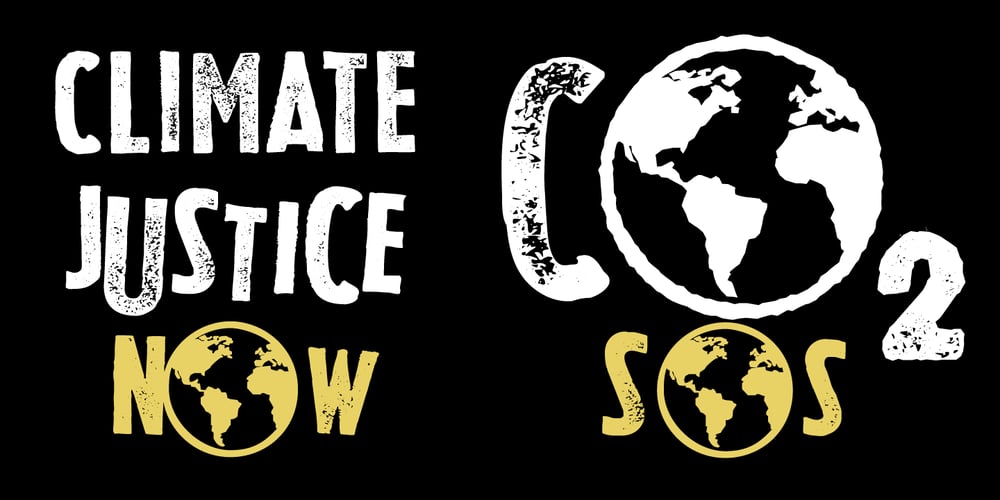
Wood Sans Font Family was designed by Manuel Viergutz and published by TypoGraphicDesign. Wood Sans contains 9 styles and family package options. The typeface Wood Sans is designed from 2021 for the font foundry Typo Graphic Design by Manuel Viergutz.The display typeface is a digital version of original wood letters from a german flea market find.8 font-styles (Clean, Clean Invest, Clean Mix, Rough, Rough Misprint, Rough Alt, Rough Dark & Icons) with 450 glyphs (Adobe Latin 2) incl. 100+ decorative extras like icons, arrows, German Capital Sharp S, dingbats, emojis, symbols, geometric shapes, catchwords, decorative ligatures (type the word #LOVE for ♥︎or #SMILE for ☺ as OpenType-Feature dlig) and stylistic alternates (3 stylistic sets).For use in logos, magazines, posters, advertisement plus as webfont for decorative headlines. The font works best for display size.Have fun with this font & use the DEMO-FONT (with reduced glyph-set) FOR FREE! ■ Font Name: Wood Sans■ Font Styles: 8 font-styles (Clean, Clean Invert, Clean Mix, Rough, Rough Misprint, Rough Alt, Rough Dark & Icons) + DEMO (with reduced glyph-set)■ Font Category: Display for headline size■ Font Format: .off (for Print) + .woff (for Web)■ Glyph Set: 450 glyphs (Latin 2 incl. decorative extras like icons)■ Language Support: 69 languages: Afrikaans, Albanian, Asu, Basque, Bemba, Bena ,Breton ,Catalan ,Chiga ,Cornish ,Danish ,Dutch ,English ,Estonian ,Faroese ,Filipino ,Finnish ,French ,Friulian ,Galician ,German ,Gusii ,Indonesian ,Irish ,Italian ,Kabuverdianu ,Kalenjin ,Kinyarwanda ,Luo ,Luxembourgish ,Luyia ,Machame ,Makhuwa-Meetto ,Makonde ,Malagasy ,Manx ,Morisyen ,North Ndebele ,Norwegian Bokmål ,Norwegian Nynorsk ,Nyankole ,Oromo ,Portuguese ,Quechua ,Romansh ,Rombo ,Rundi ,Rwa ,Samburu ,Sango ,Sangu ,Scottish Gaelic ,Sena ,Shambala ,Shona ,Soga ,Somali ,Spanish ,Swahili ,Swedish ,Swiss German ,Taita ,Teso ,Uzbek (Latin) ,Volapük ,Vunjo ,Welsh ,Western Frisian ,Zulu■ Design Date: 2021■ Type Designer: Manuel Viergutz